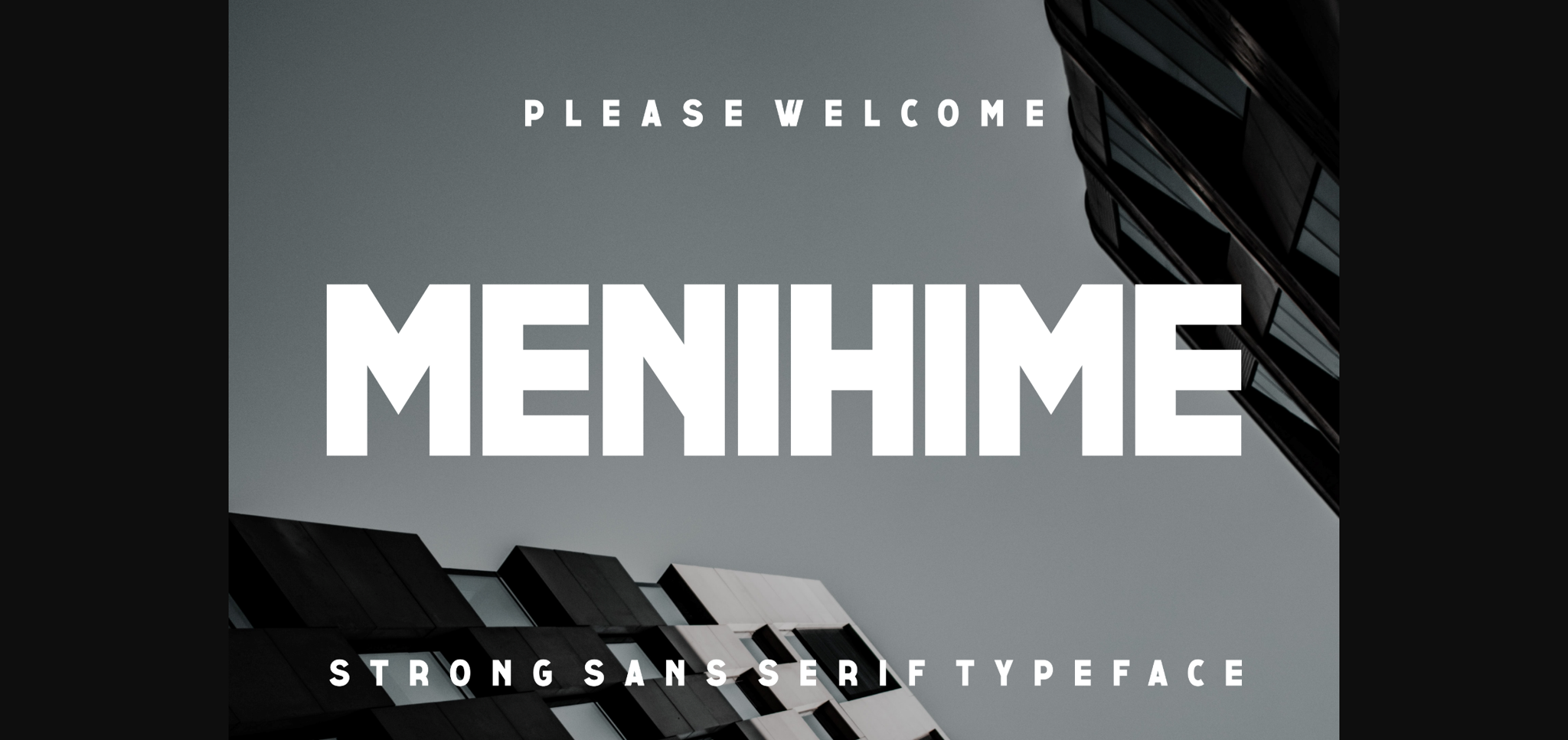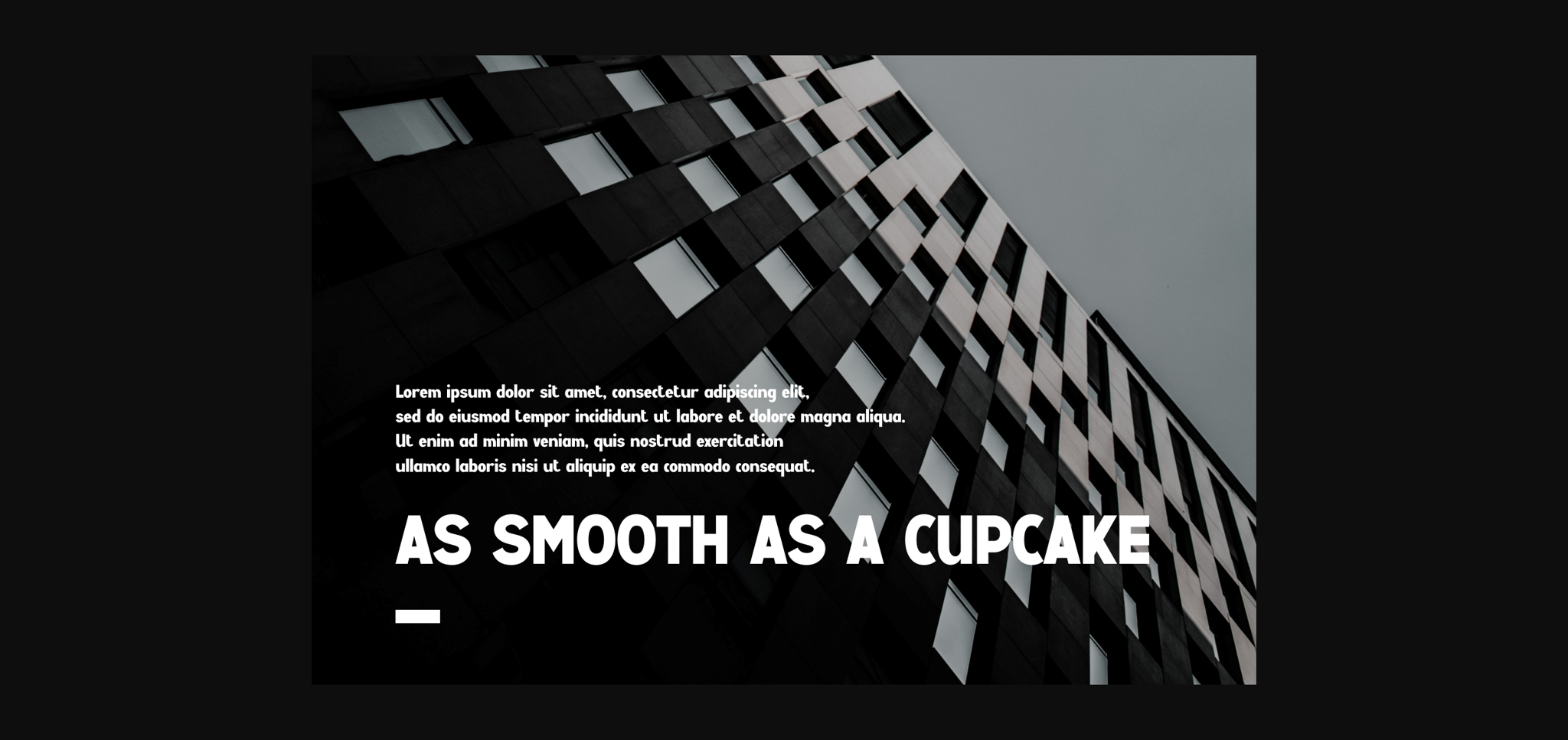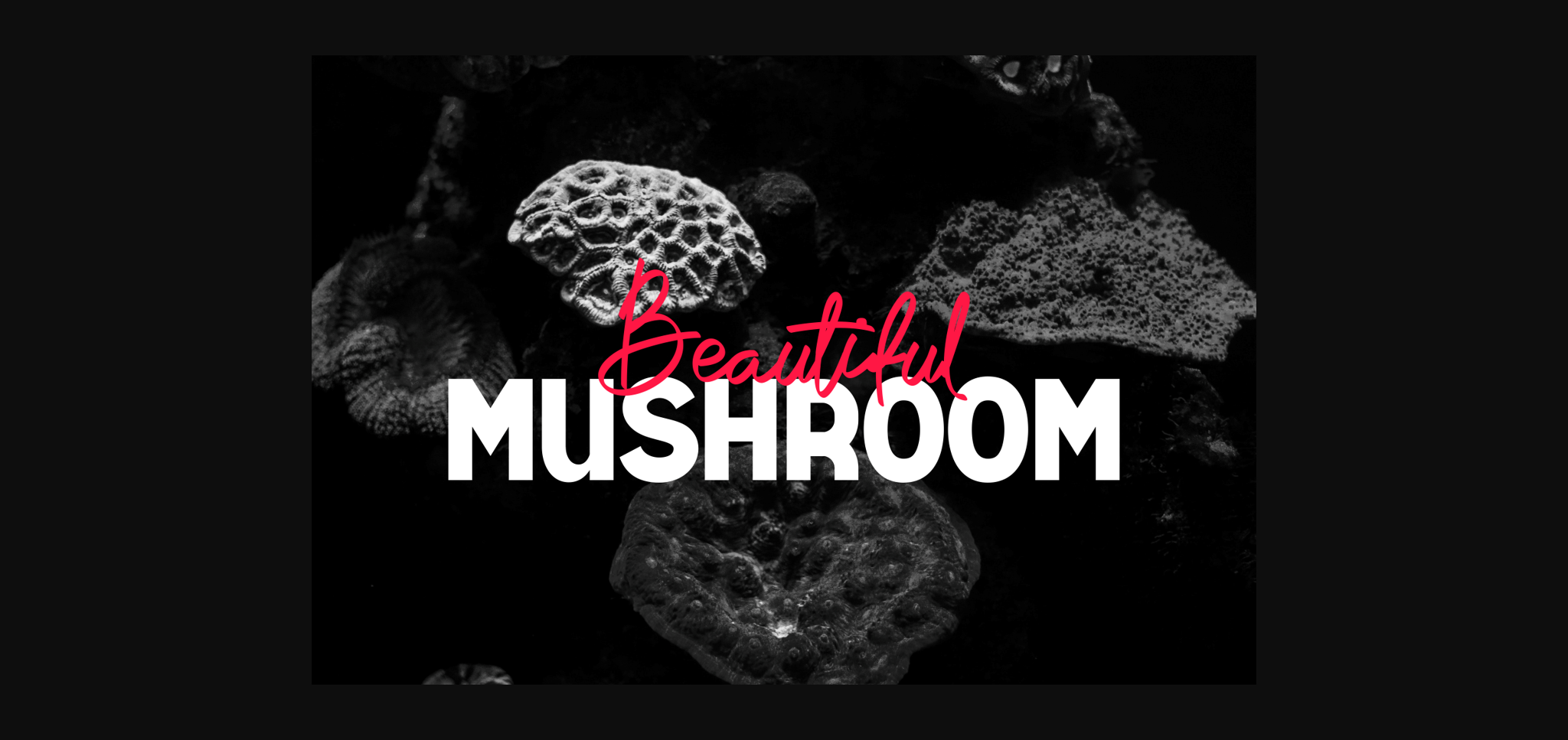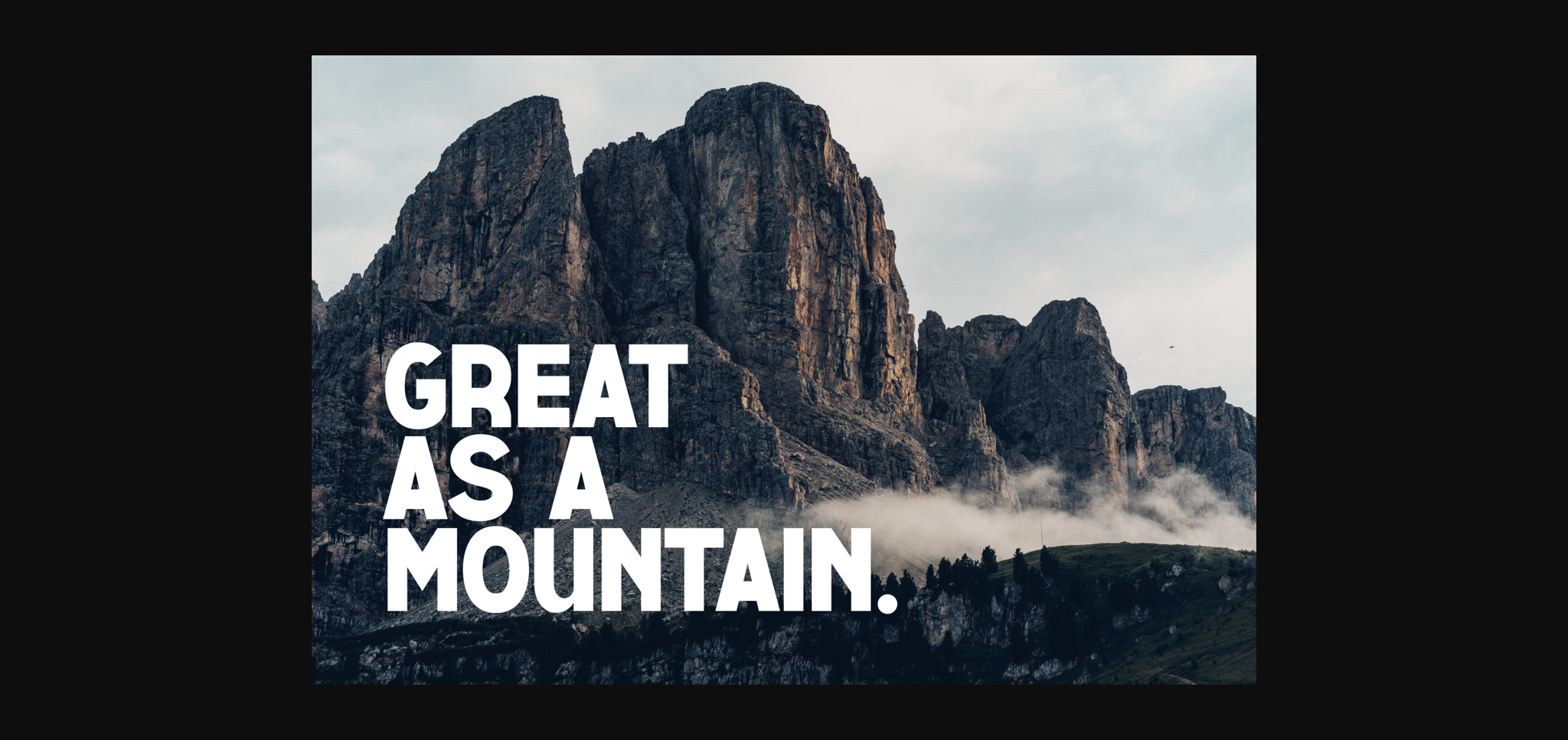
Menihime Font
About Menihime Font
Menihime is a cool and unique sans serif font. No matter the topic, this font will be an incredible asset to your fonts’ library, as it has the potential to elevate any creation.